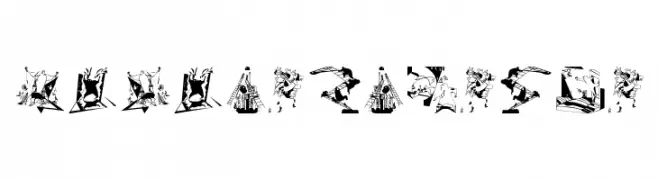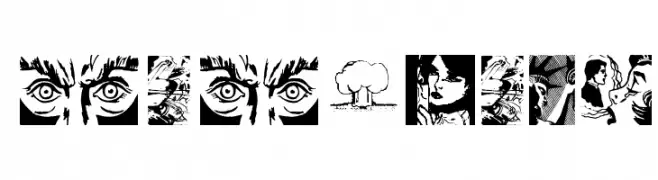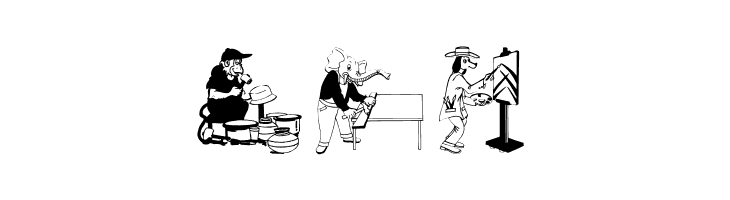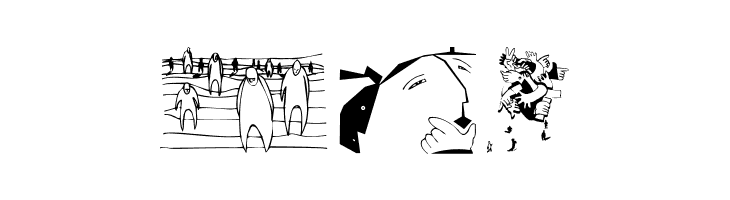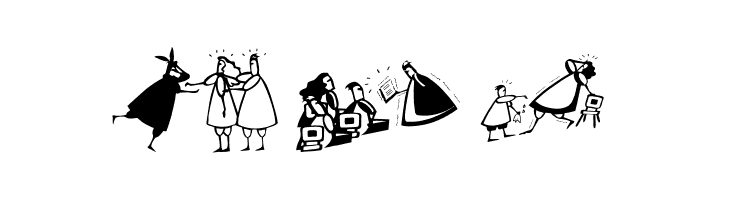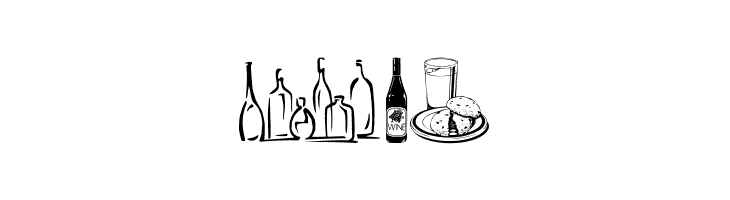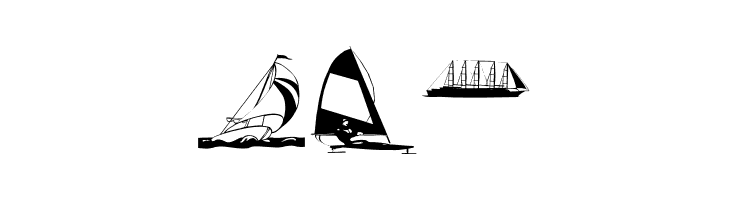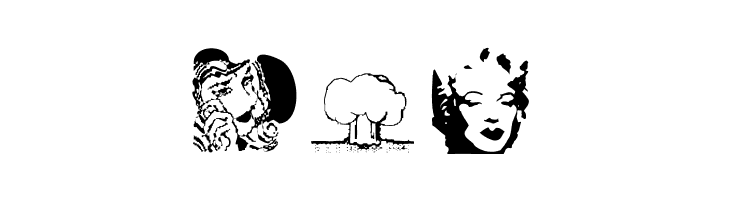
A woodcut-style dingbat font with playful, vintage illustrations.
Cartoon animal dingbat font featuring humorous scenes.
Decorative maritime-themed dingbat set with bold, vintage illustrations.
An artistic and decorative font with intricate illustrations in each character.
Illustrative, story-driven font with biblical and ancient motifs.
Cartoonish dingbat font featuring humorous bad luck scenarios.
A decorative font inspired by ancient cave paintings, featuring pictograms of humans and animals.
( Fonts by Graham Meade - GemFonts )
A decorative dingbat font with assorted drink and beverage illustrations.
Decorative maritime pictogram set with detailed nautical illustrations.
A decorative font featuring pop art-inspired icons and illustrations.